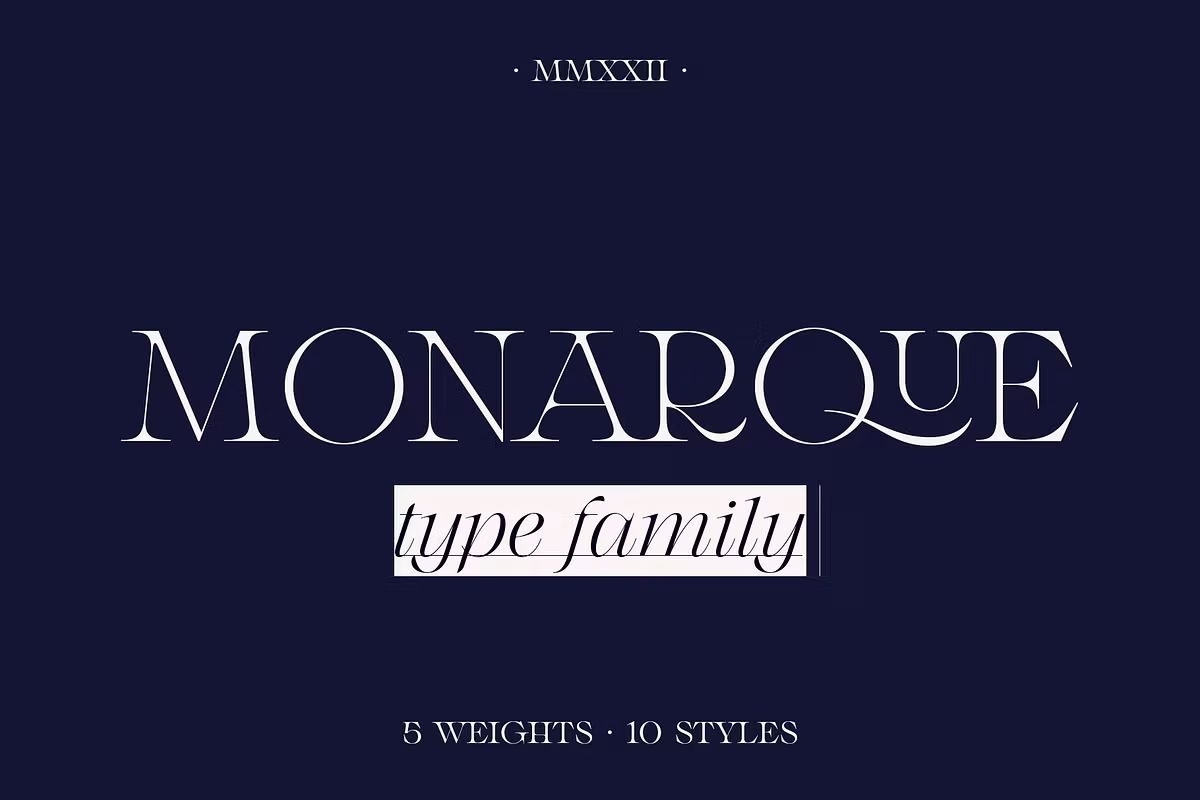
Monarque - Classy Serif Type Family Free Download
Monarque Font Free Download is a classy serif type family that exudes elegance, sophistication, and timeless style. With its high-contrast strokes, refined curves, and regal presence, Monarque is perfect for luxury branding, editorial layouts, wedding stationery, fashion campaigns, and upscale packaging.
This font family includes multiple weights and beautifully crafted ligatures, offering flexibility and finesse across a range of design applications. Monarque balances readability with artistic detail, making it a standout choice for both headlines and refined body text.
Whether you're designing a high-end logo or an elegant magazine spread, Monarque Font Free Download provides the perfect blend of tradition and modernity. Feel free to explore it in personal or test projects, and be sure to purchase the correct license for commercial use. Add a touch of grandeur to your typography with this elegant serif font family.